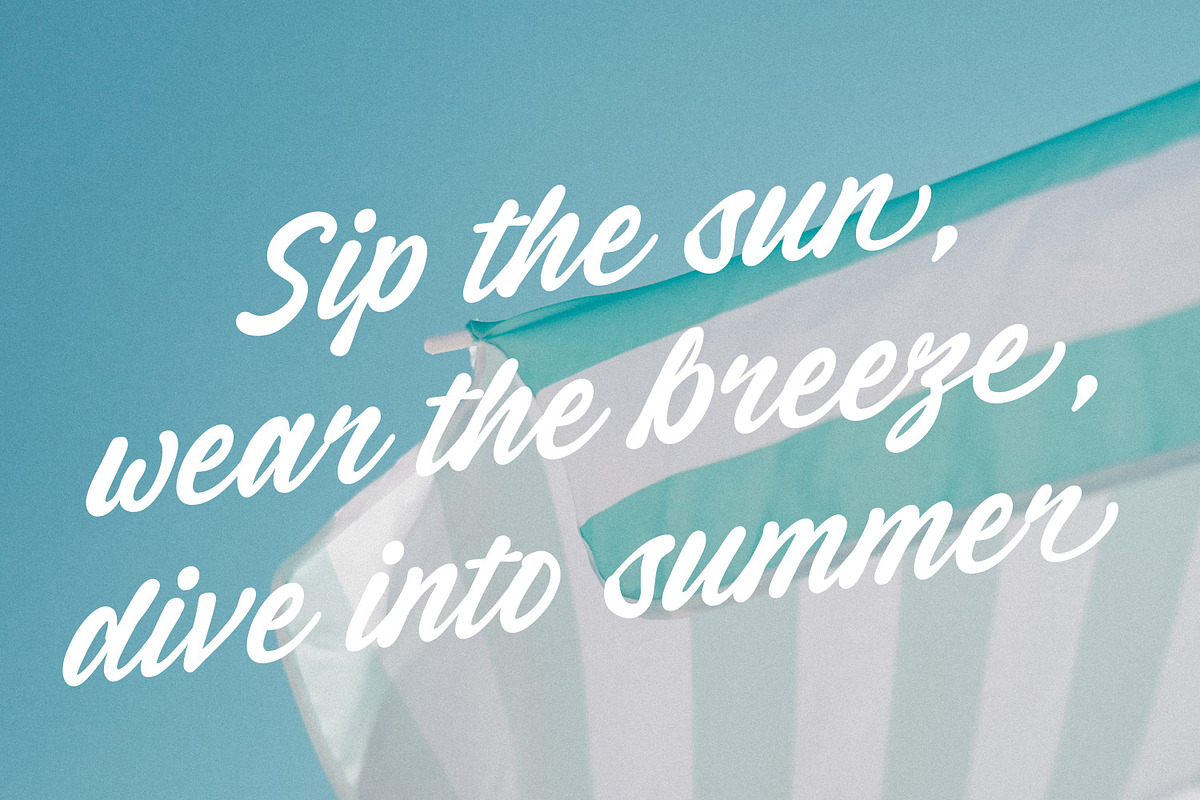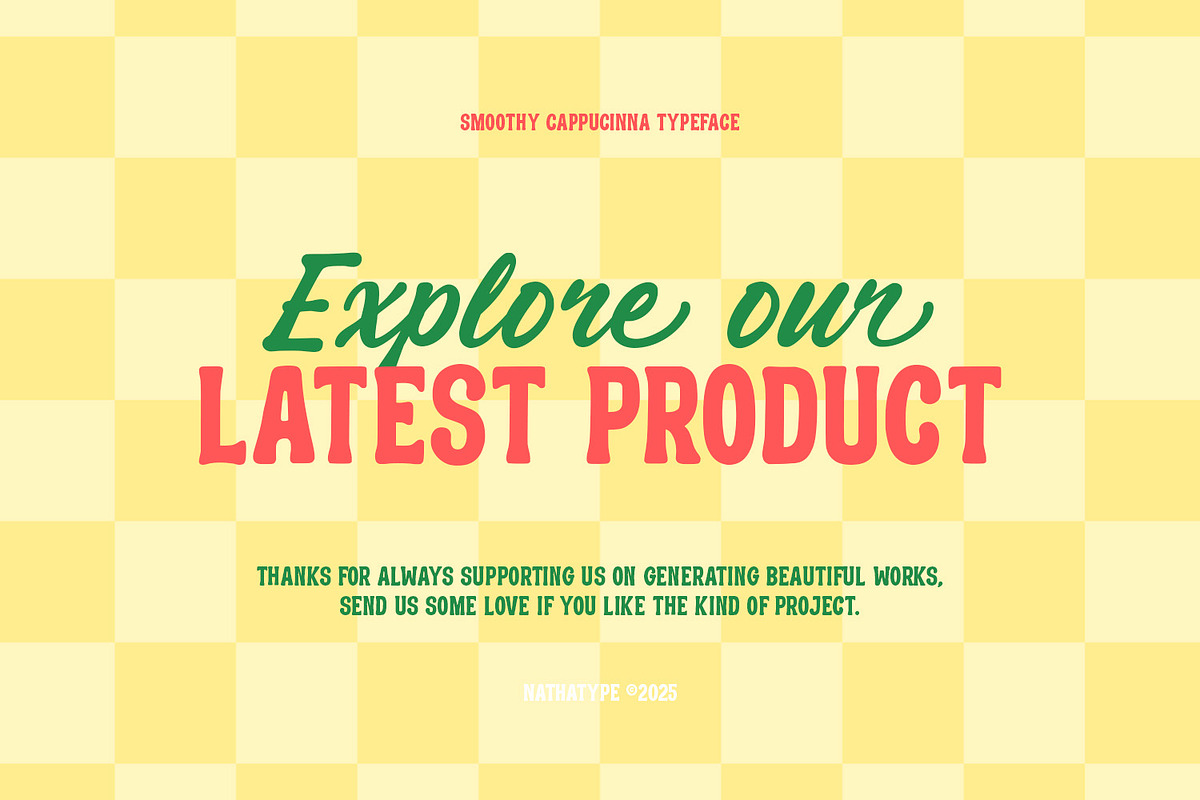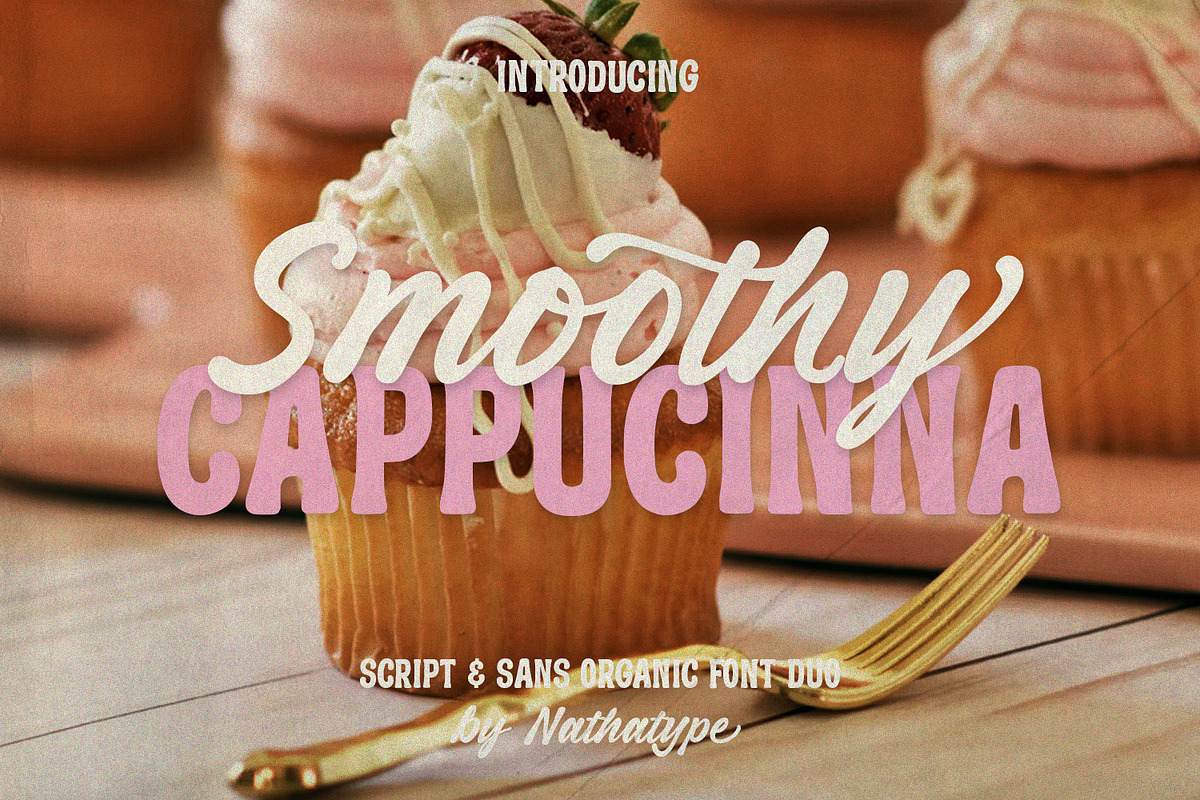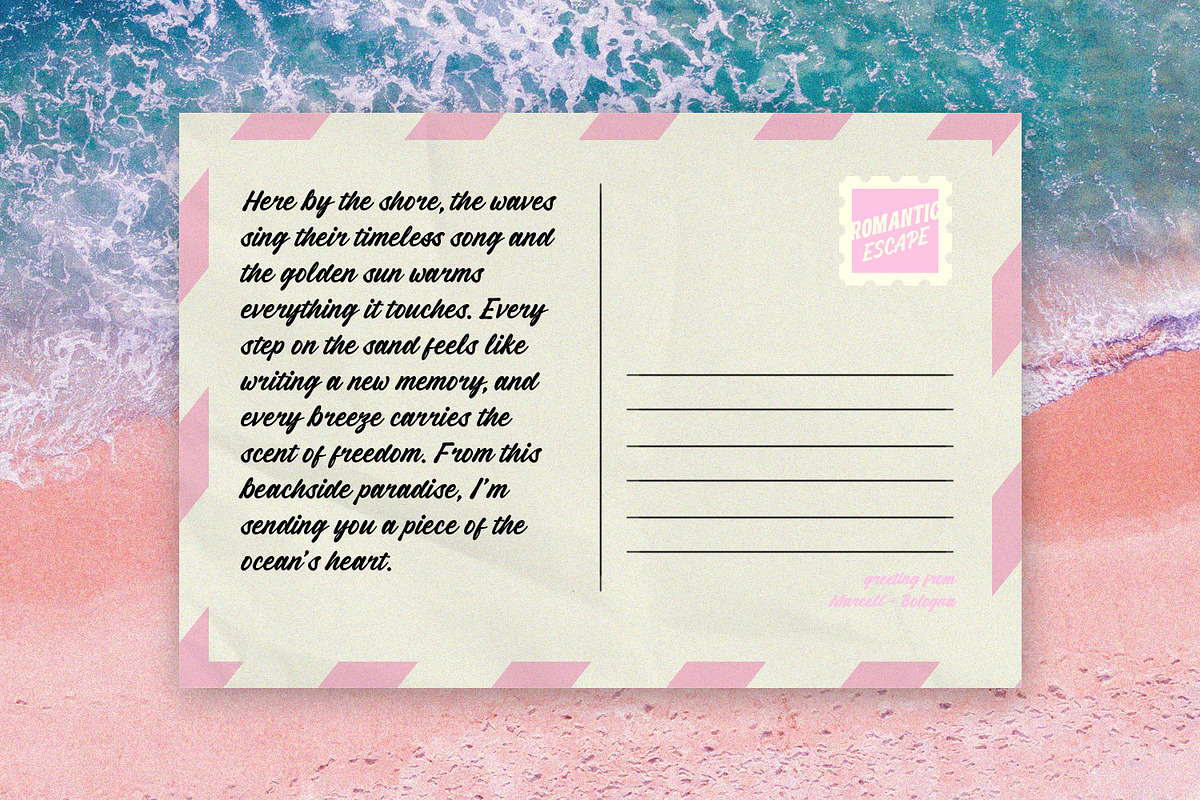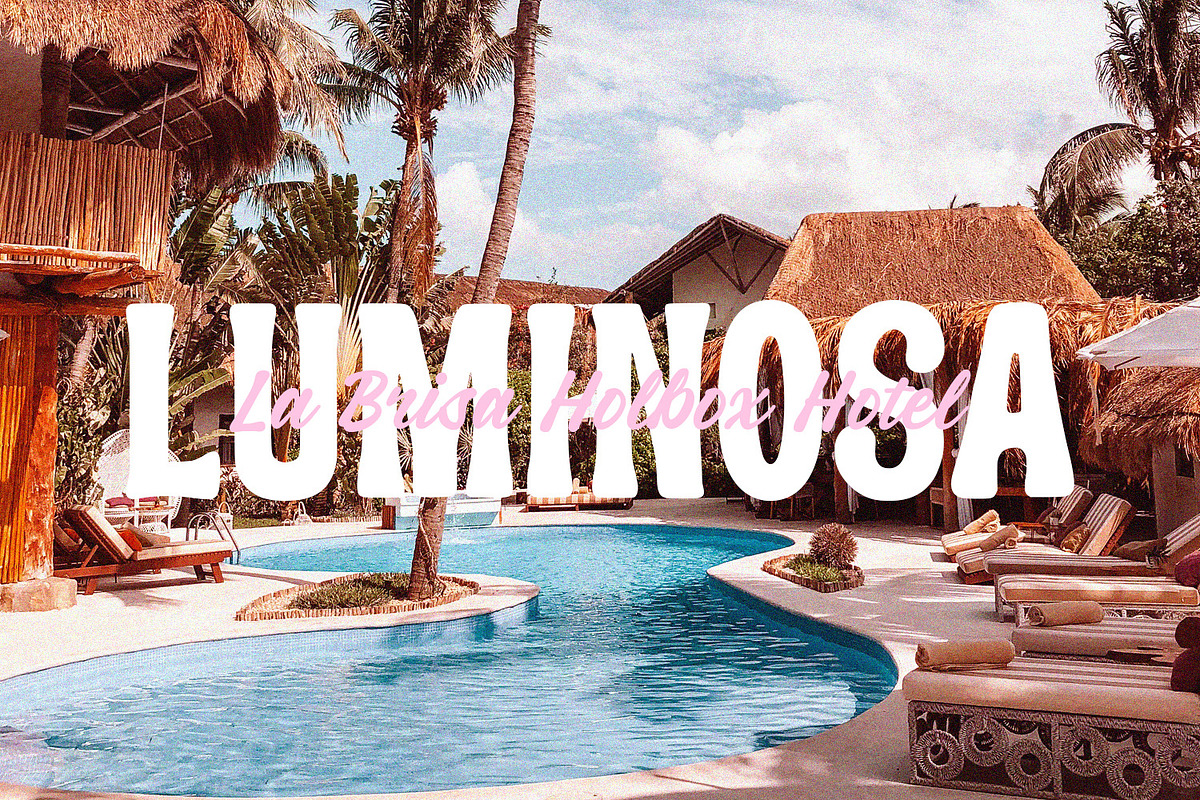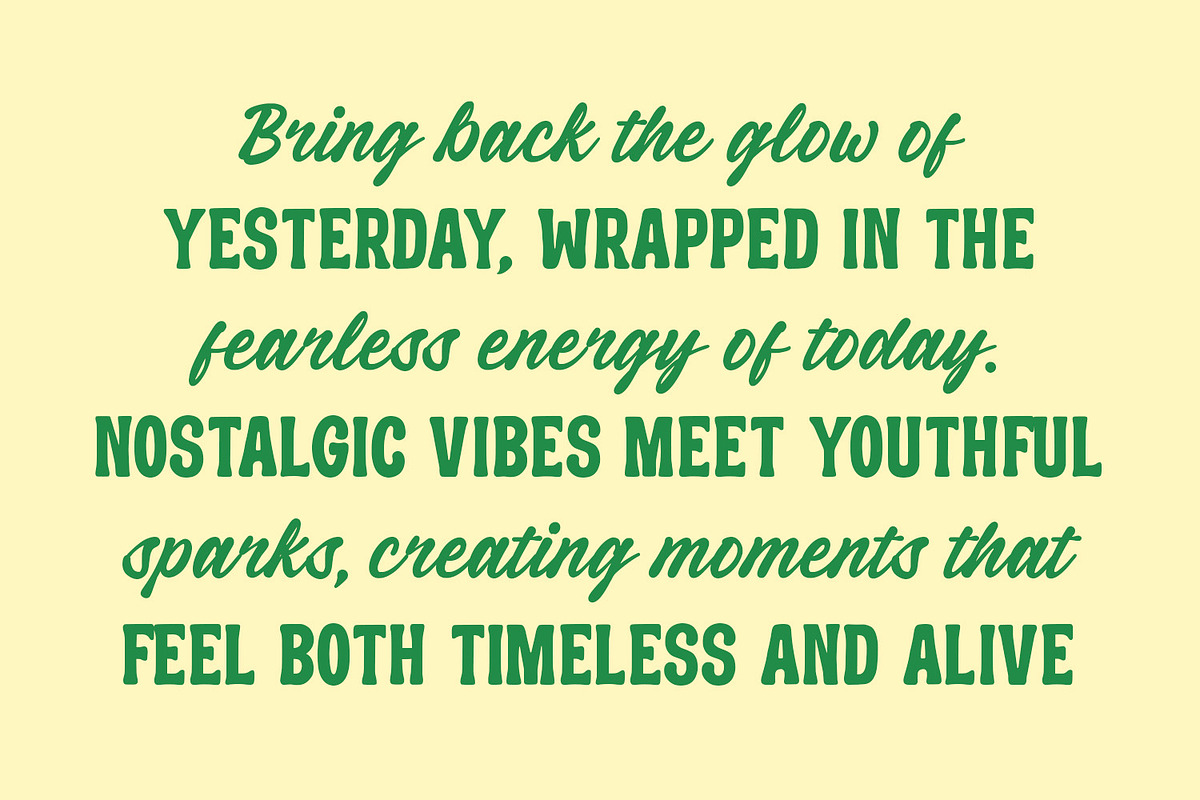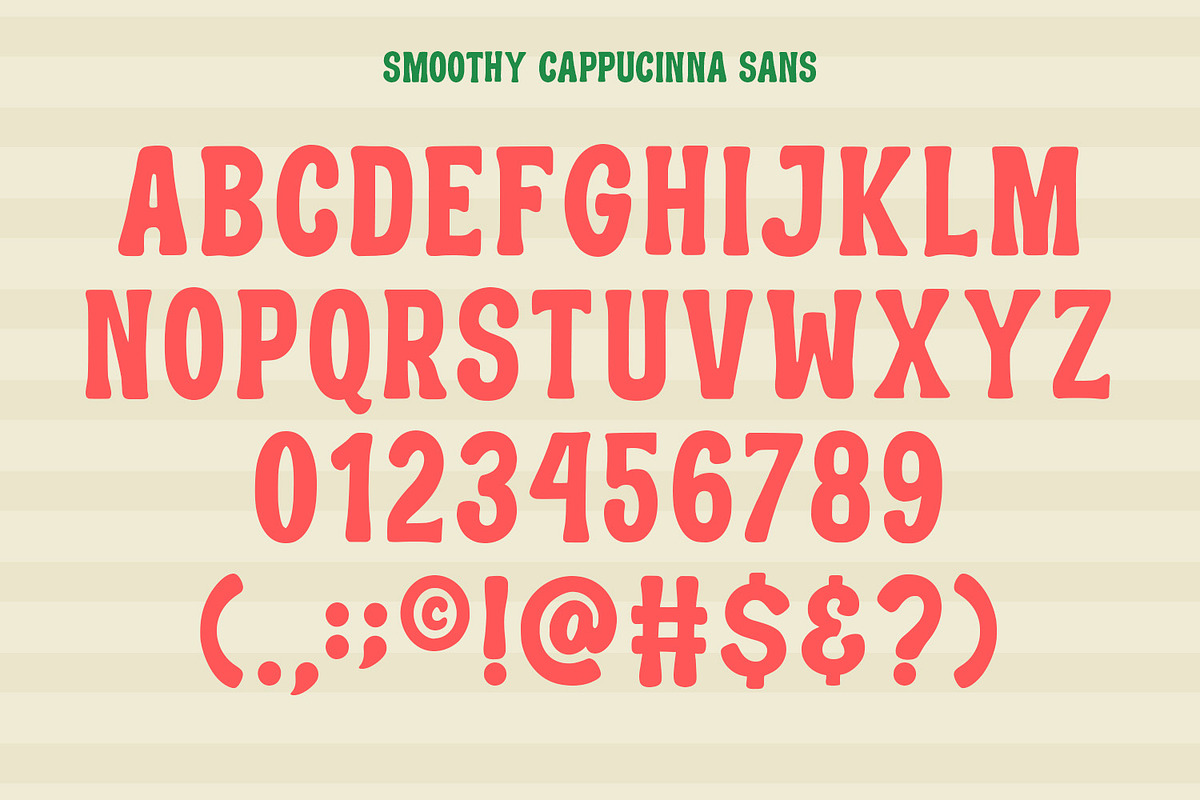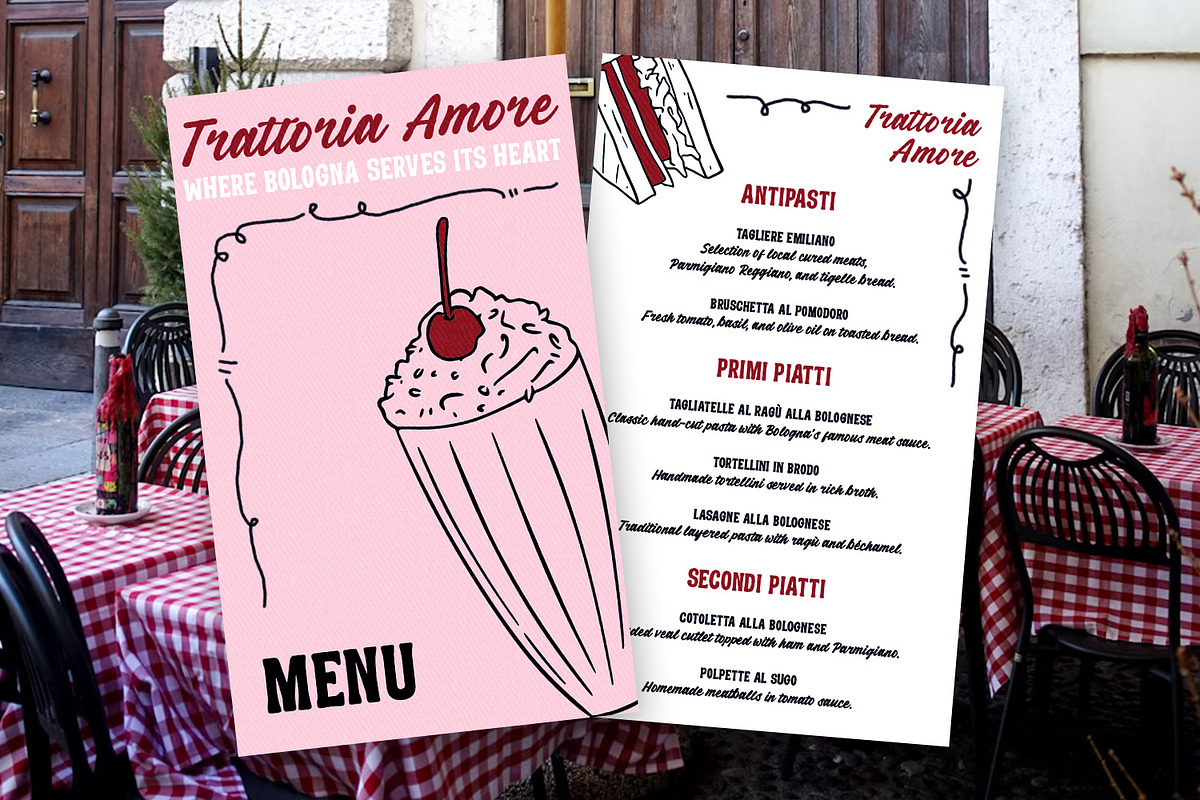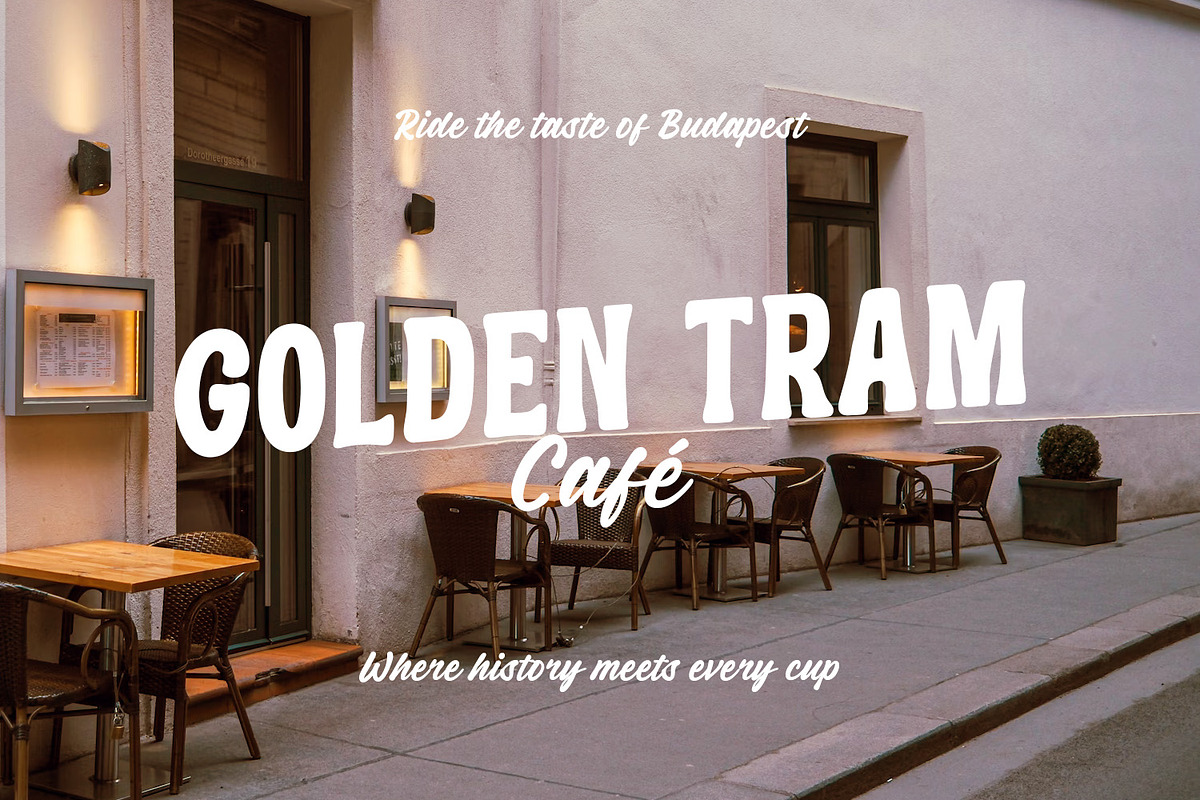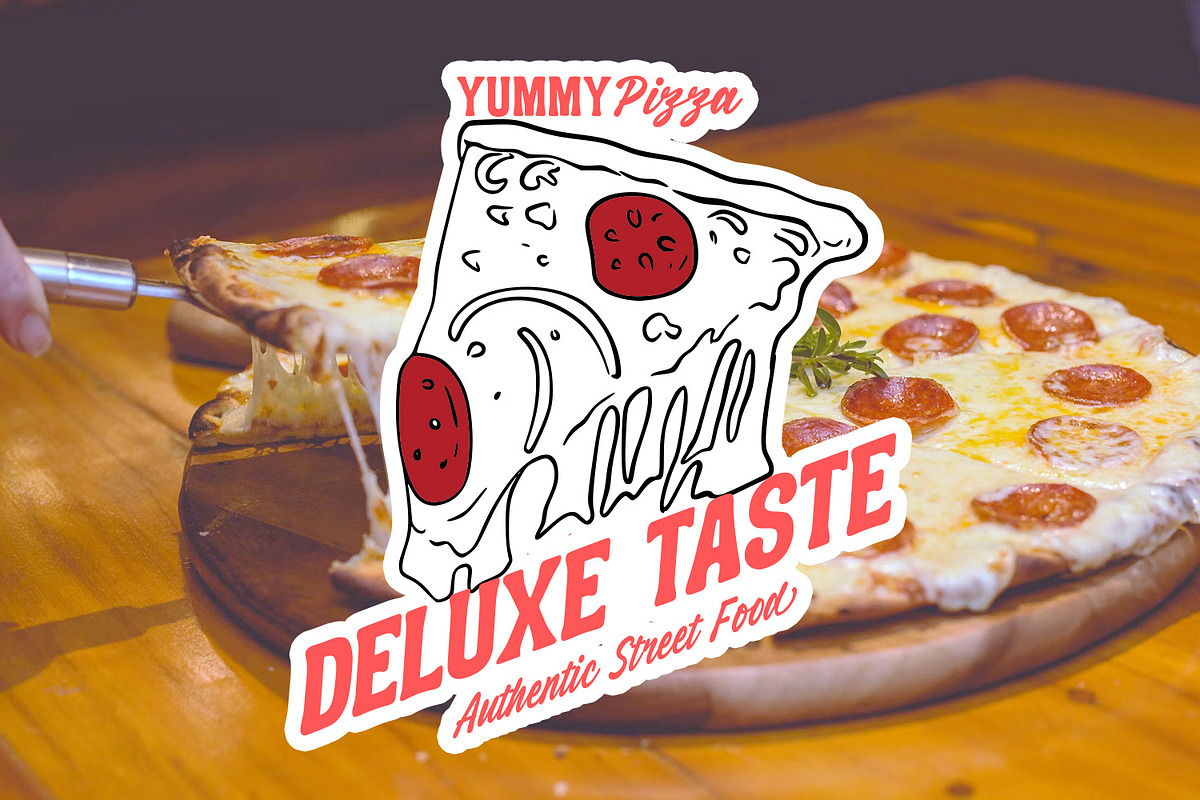
Smoothy Cappucina
Smoothy Cappuccinna is a stylish font duo that blends the warmth of script with the confidence of bold sans serif design. This elegant pairing includes a smooth, flowing script font inspired by natural handwriting and uppercases sans serif font crafted with a fairly bold weight for strong, balanced contrast. Together, they create the perfect harmony of softness and structure, making your typography look effortlessly modern and beautifully cohesive. In addition, enjoy the features here.
- Stylistic Sets
Smoothy Cappucinna fits in branding, packaging, quotes, invitations, logos, posters, and many more designs. Find out more ways to use this font by taking a look at the font preview.